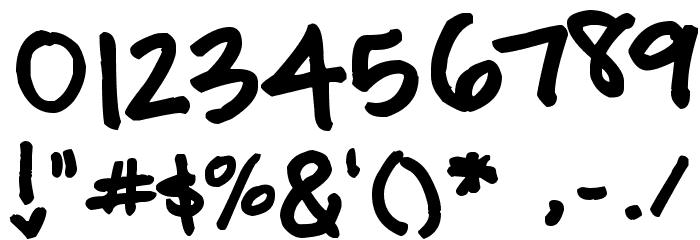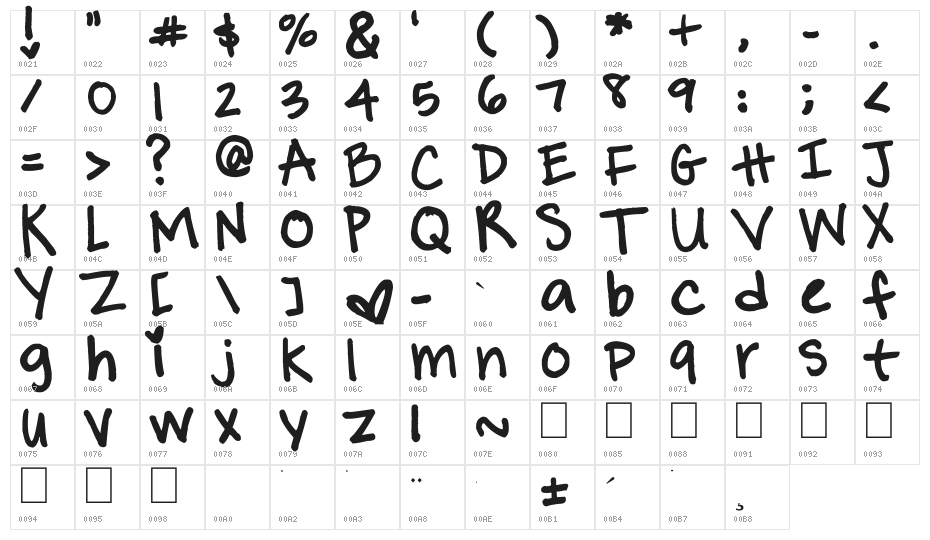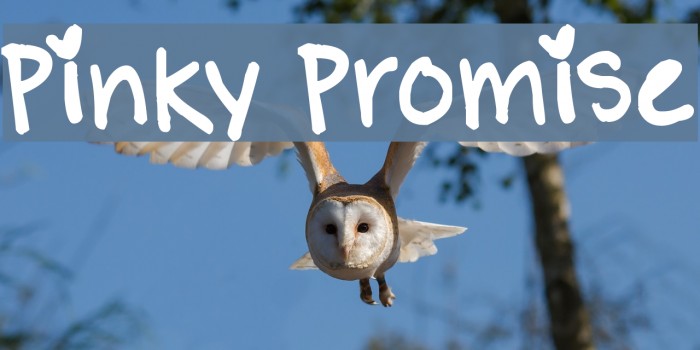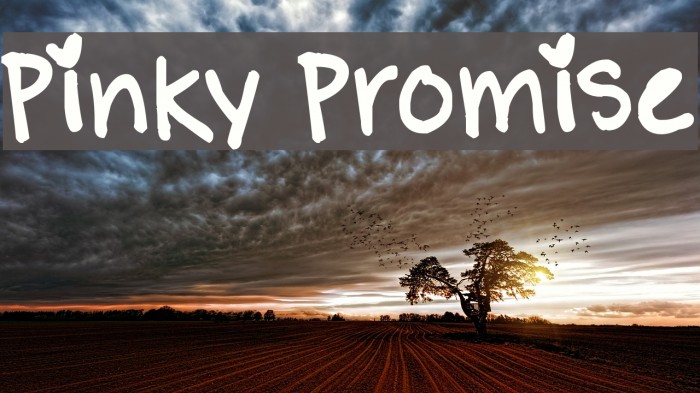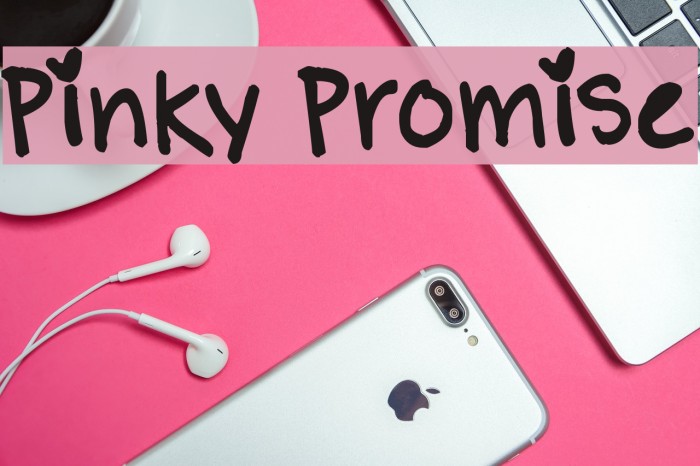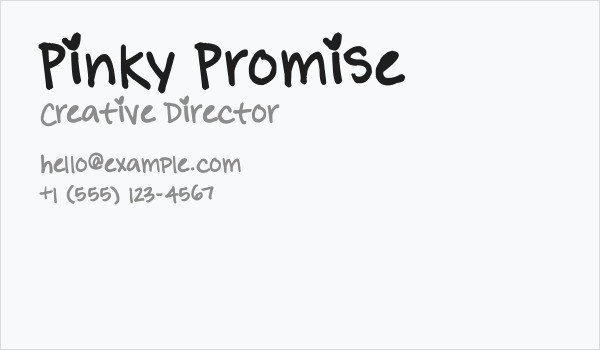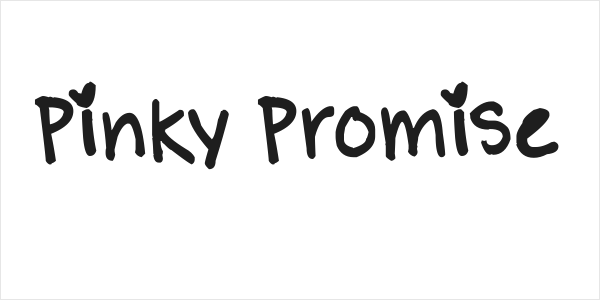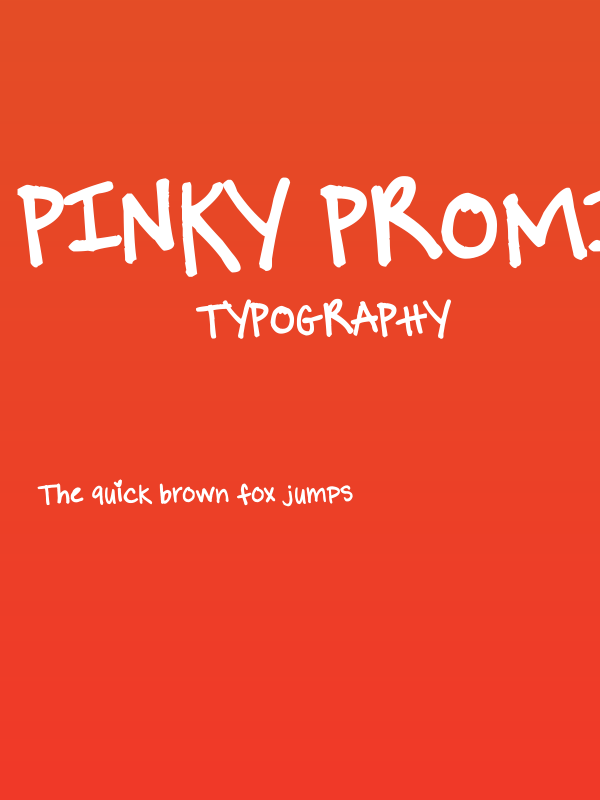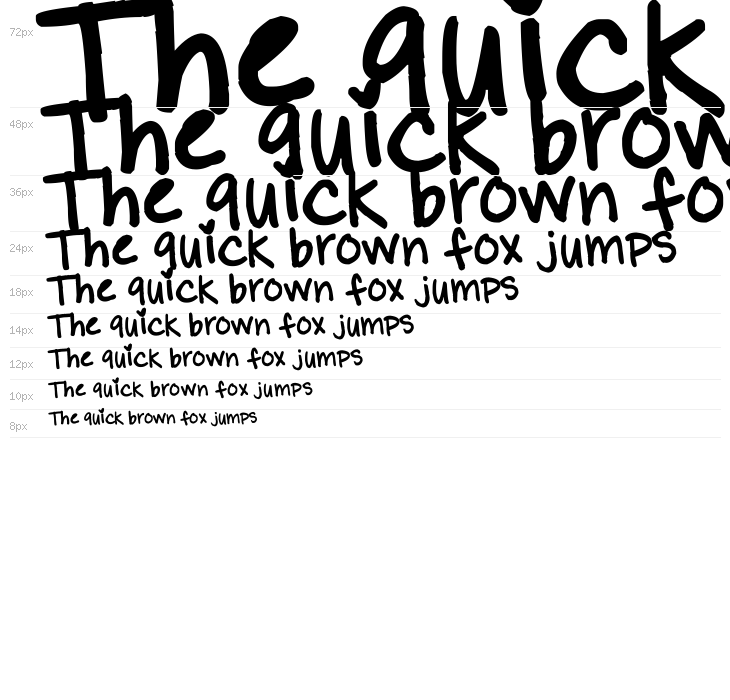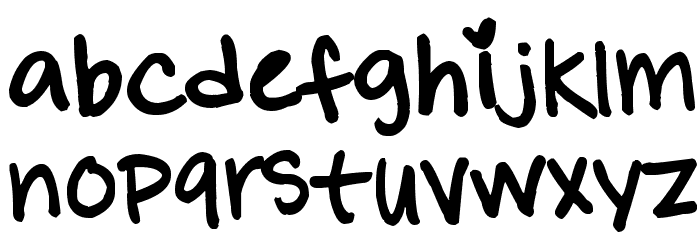
Pinky Promise Font
Pinky Promise Description
This playful and whimsical font features a handwritten style with a casual and friendly appearance. The letters are bold and slightly irregular, giving them a lively and energetic feel. The uppercase and lowercase characters maintain a consistent style, with rounded edges and a slightly tilted orientation that adds to the informal vibe. The numbers and special characters are equally expressive, maintaining the font's overall playful aesthetic. This font is perfect for projects that require a personal touch, such as greeting cards, children's books, or playful branding. Its unique style is sure to capture attention and convey a sense of fun and creativity.
| Proposed Projects | Ideal for greeting cards, children's books, playful branding, and creative projects. |